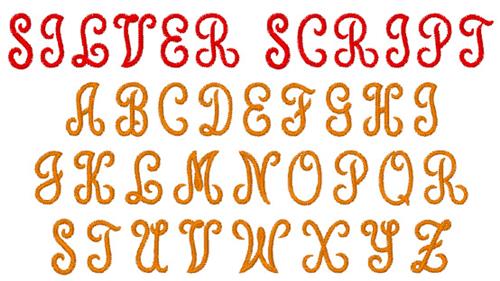
Internet Stitch is happy to present Silver Script machine embroidery font which has Flowing, curvy machine embroidery font showcasing warm orange strokes, perfect for decorative cushions and home decor projects. Available in ELP format. included. If you would like to view more embroidery fonts and alphabets please search our embroidery fonts page.